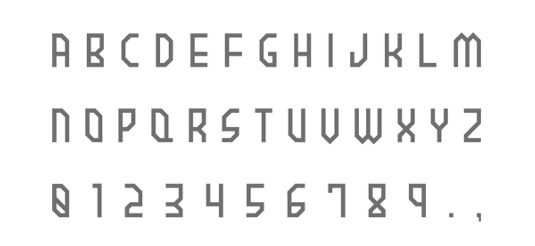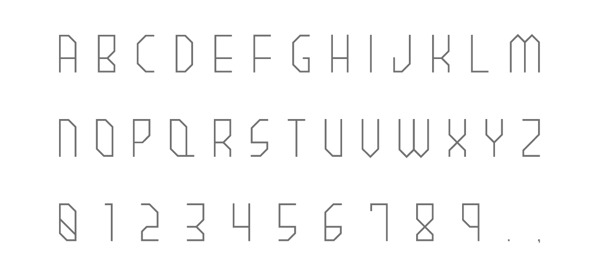
Every day we showcase the best fonts on the web. Today it's Brownie, a sweet octagonal font in two weights, and it's completely free!
Brownie by Nemk
Today's font is Brownie, created by Japanese design student Nemk. It's an octagonal font that comes in two weights, Regular and Light.